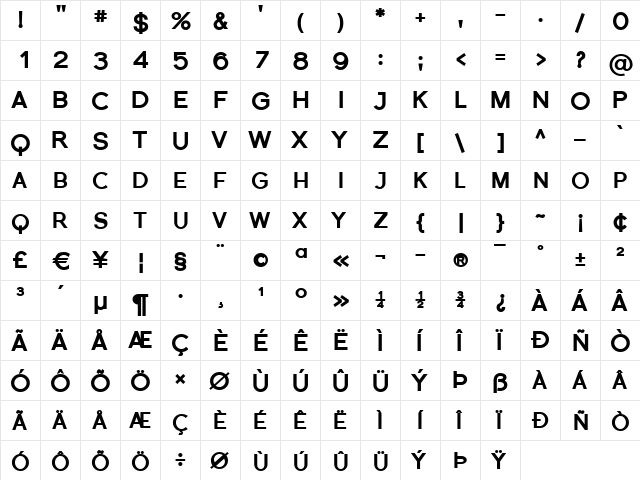
Florencesans SC Black Regular
Design Context for Florencesans SC Black Typeface
Florencesans SC Black offers clean, dependable letterforms without strong stylistic allegiance, making it a practical choice for designers who need flexibility.
Pro Tip: Use Florencesans SC Black in both headline and body roles to test its range before committing to a single application.